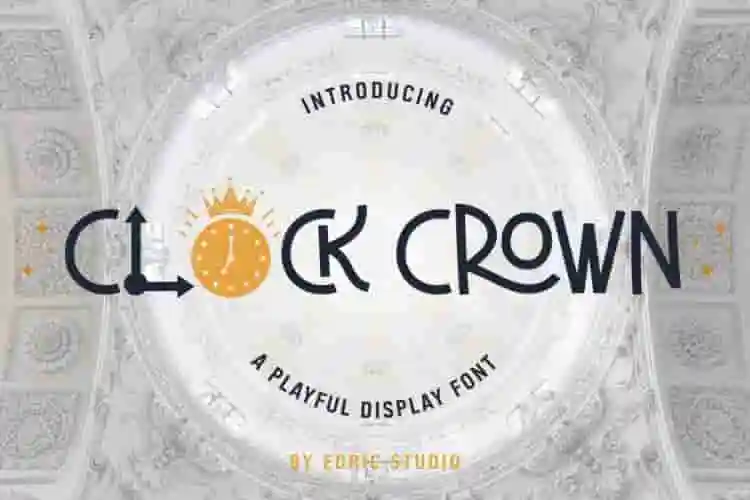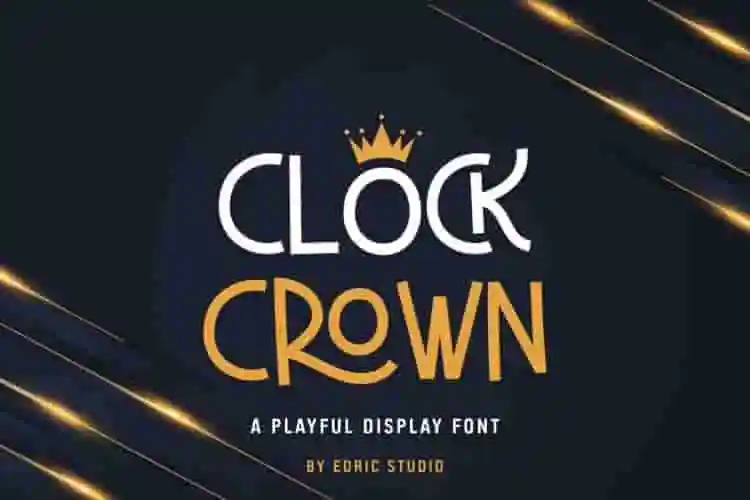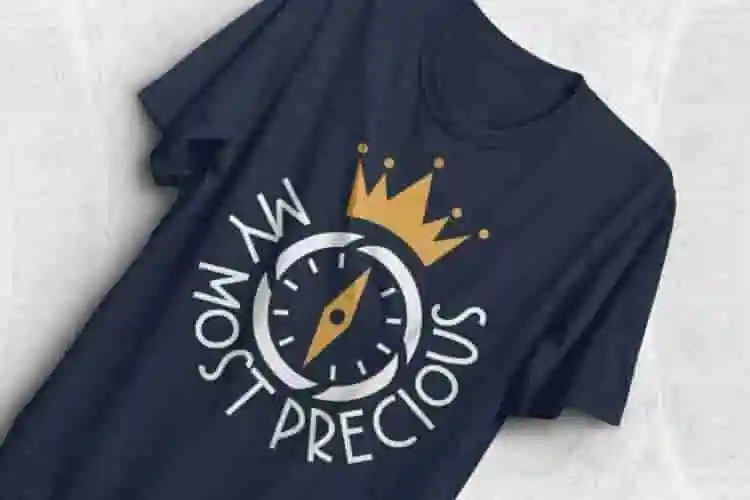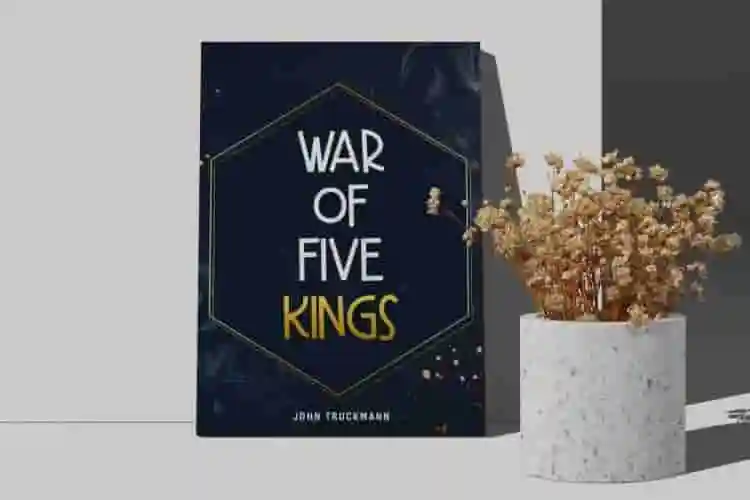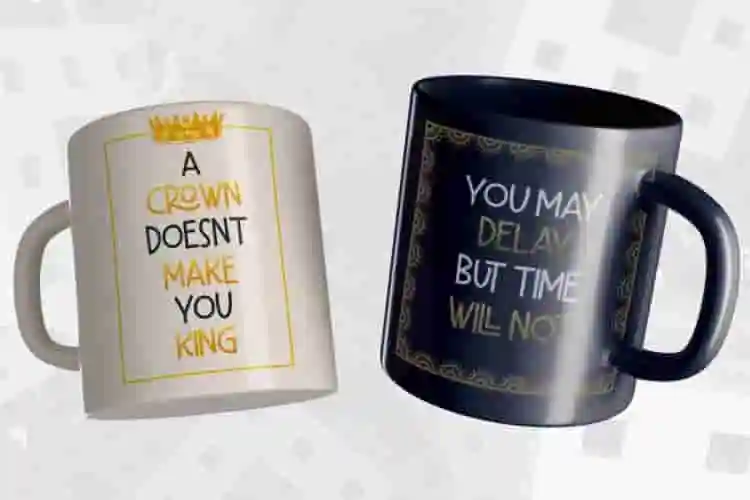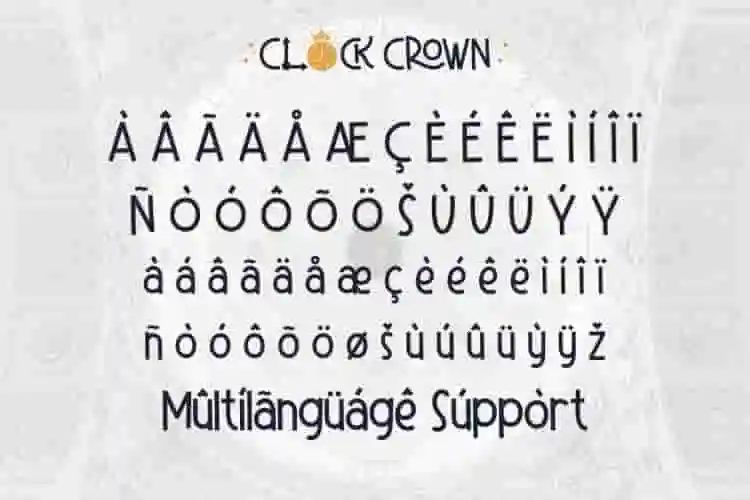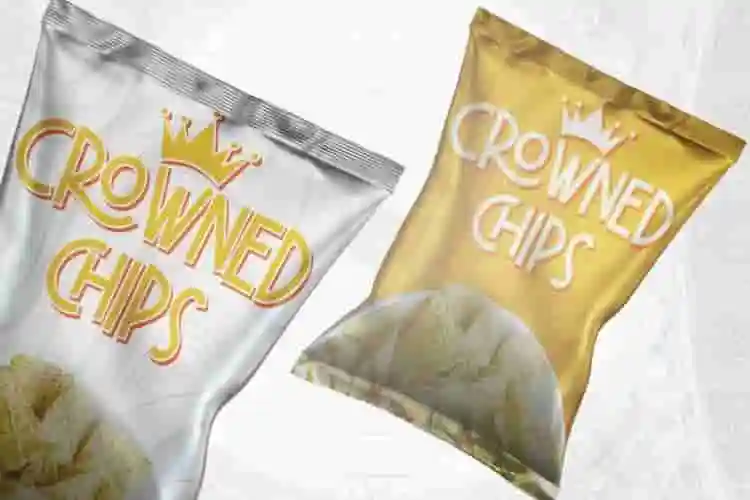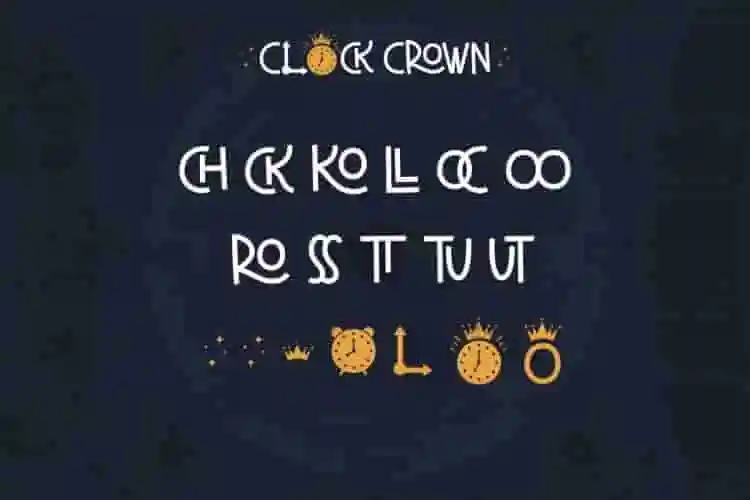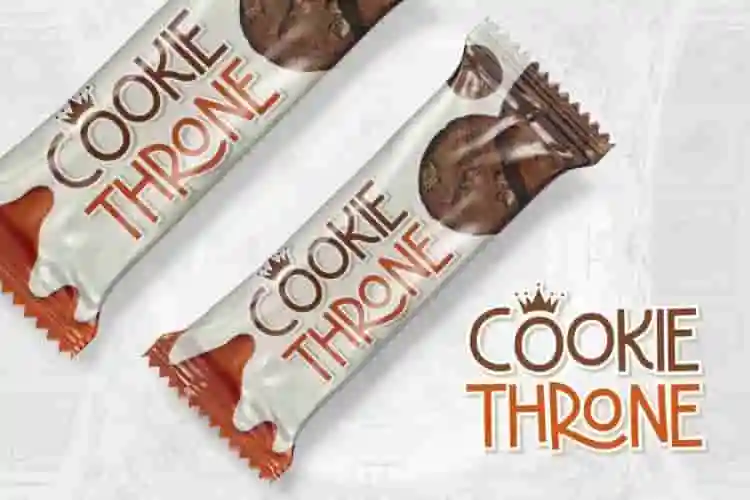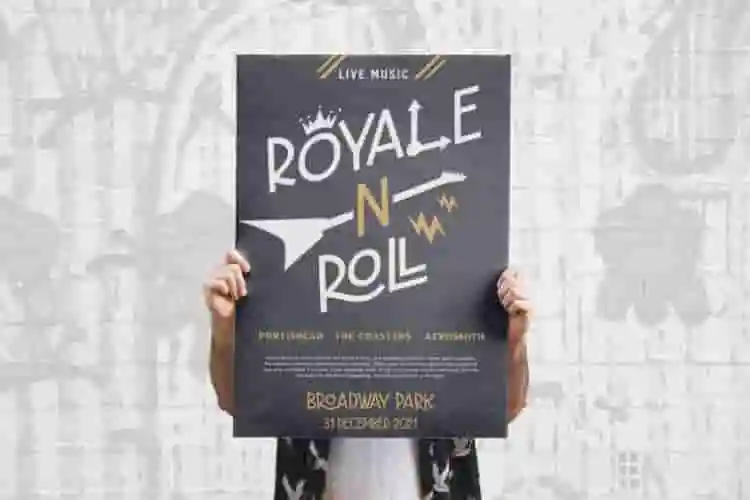
Clock Crown Font is a playful and interesting decorative font, featuring a clock and crown on its alternative characters. This is a display typeface inspired by comic cartoon animation. The font designed to give a fun and playful feel on your projects such as posters, events, product packaging, comic, movies etc.
Clock Crown Font includes a complete set of Uppercase, Lowercase Basic Character, Number, Punctuation and Ligatures. This font also support Multi Language, you can access the special features with any software. You can use this font for any designs. Whether you’re using it for crafting, children related designs, schools, brandings, story book, digital design, promotion or making greeting cards, this font has the potential to become your favorite go to font, no matter the occasion!
Step into timeless elegance with Clock Crown Display Font — a bold, commanding typeface inspired by vintage signage, royal emblems, and classic editorial styles. With its sharp serifs, dramatic curves, and refined letterforms, Clock Crown is built to capture attention and leave a lasting impression.
Whether you’re designing a luxury logo, whiskey label, book cover, apparel branding, or poster artwork, Clock Crown brings a touch of heritage and power to your typography.
Looking for a typeface that commands attention and delivers classic style? Meet Clock Crown, a powerful vintage display font with bold curves, elegant serifs, and a regal presence that elevates any design.
- Classic Display Style
- Perfect for Premium Branding